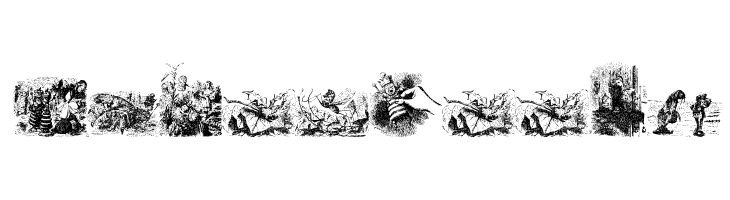
Illustrative, Victorian-inspired decorative font using detailed engravings for each character.
A decorative font with intricate, storybook-style illustrations within each character.